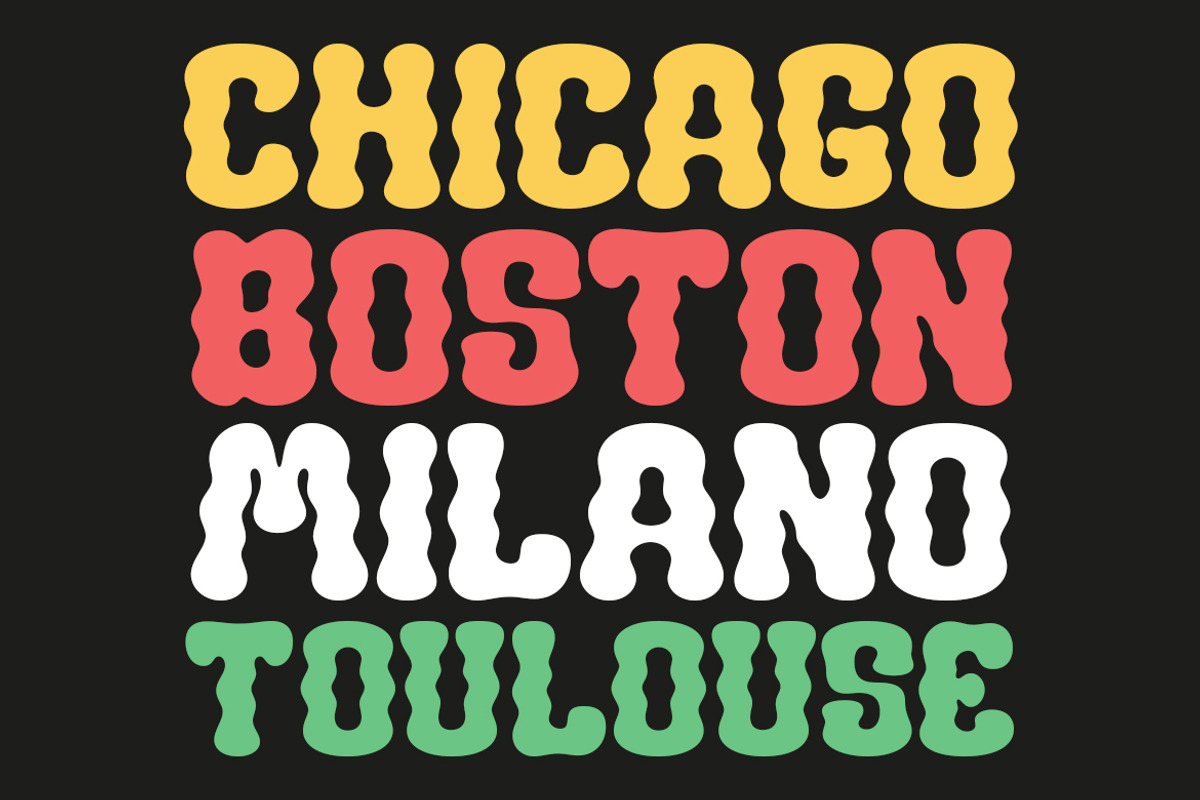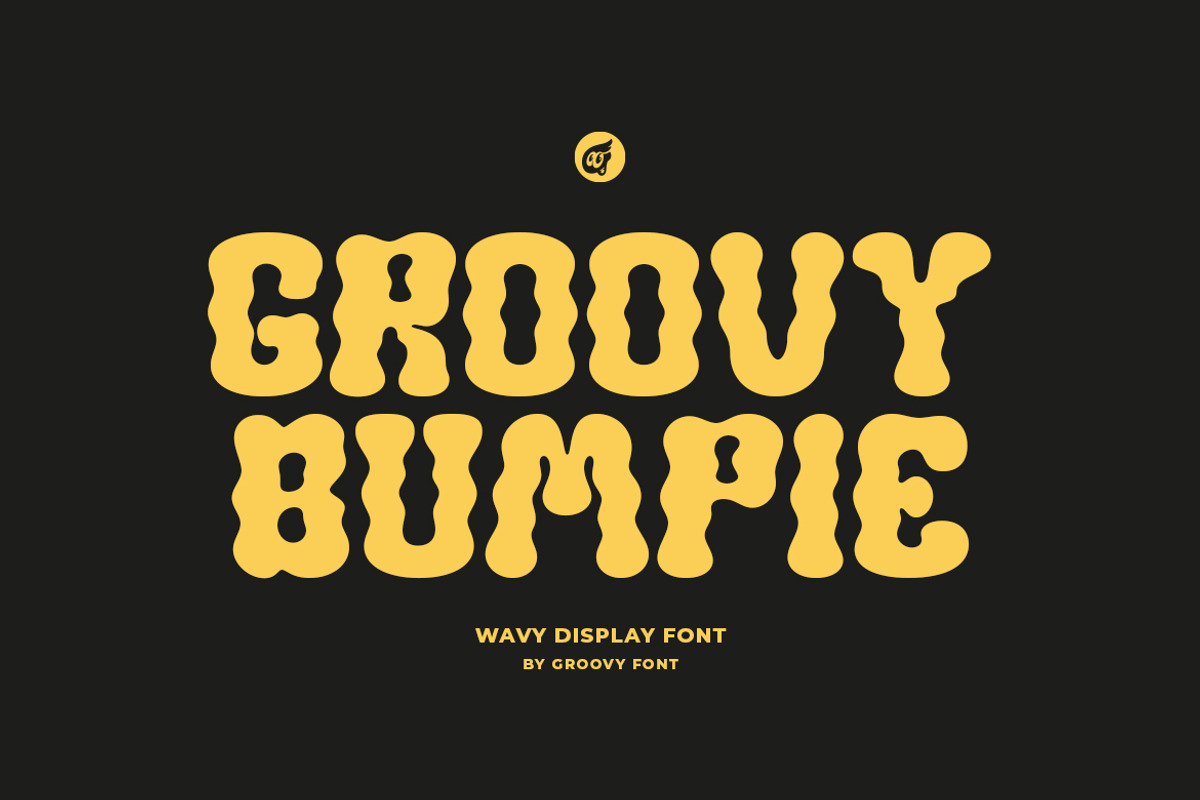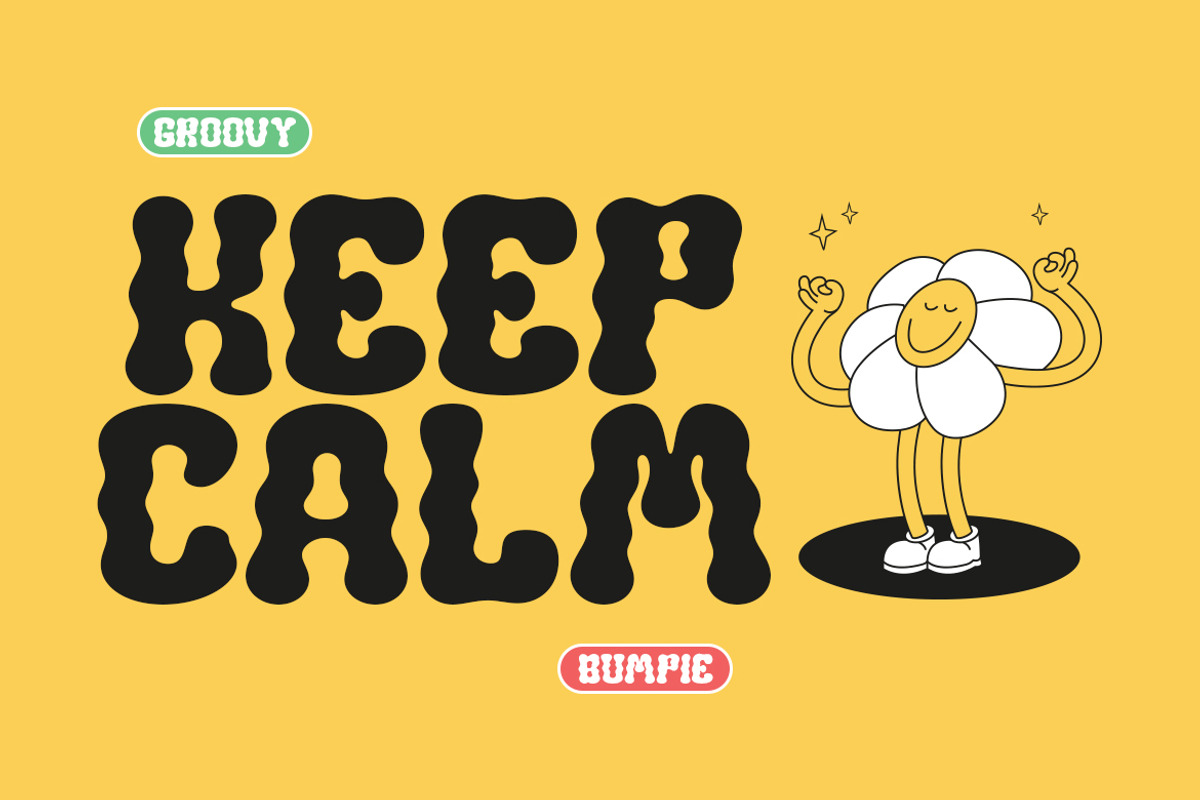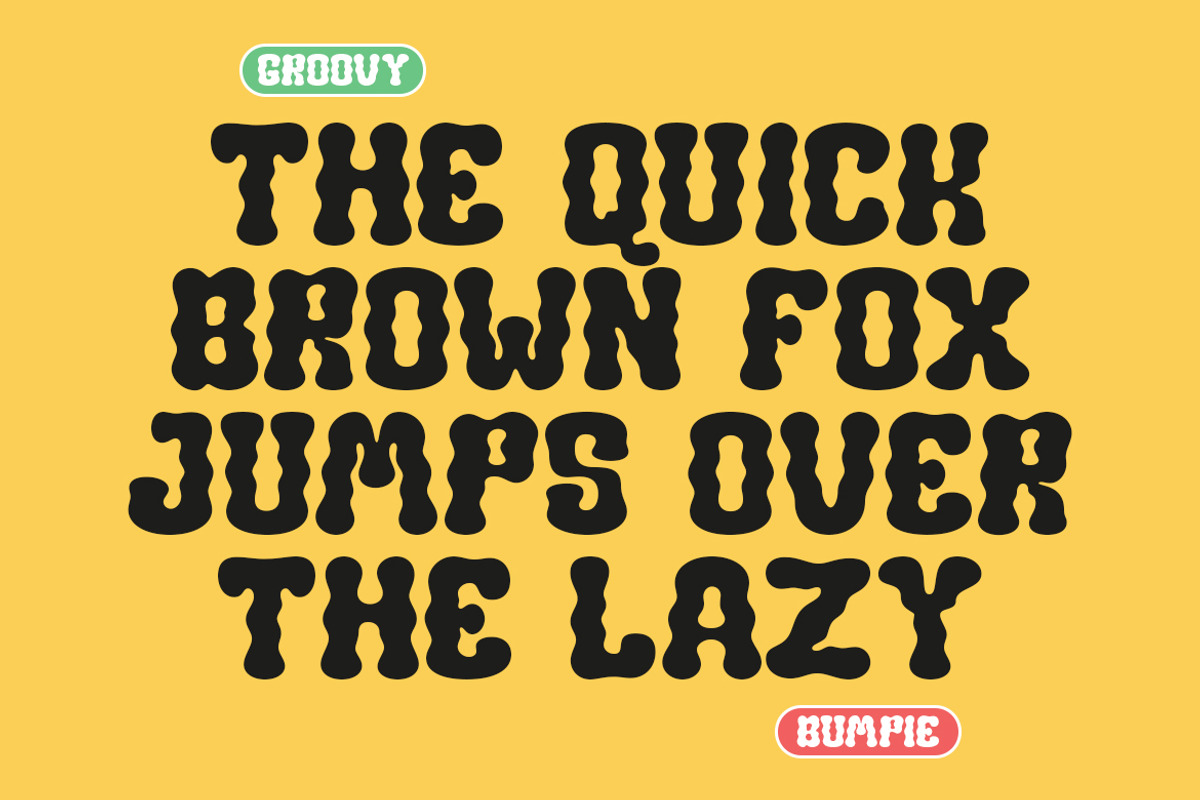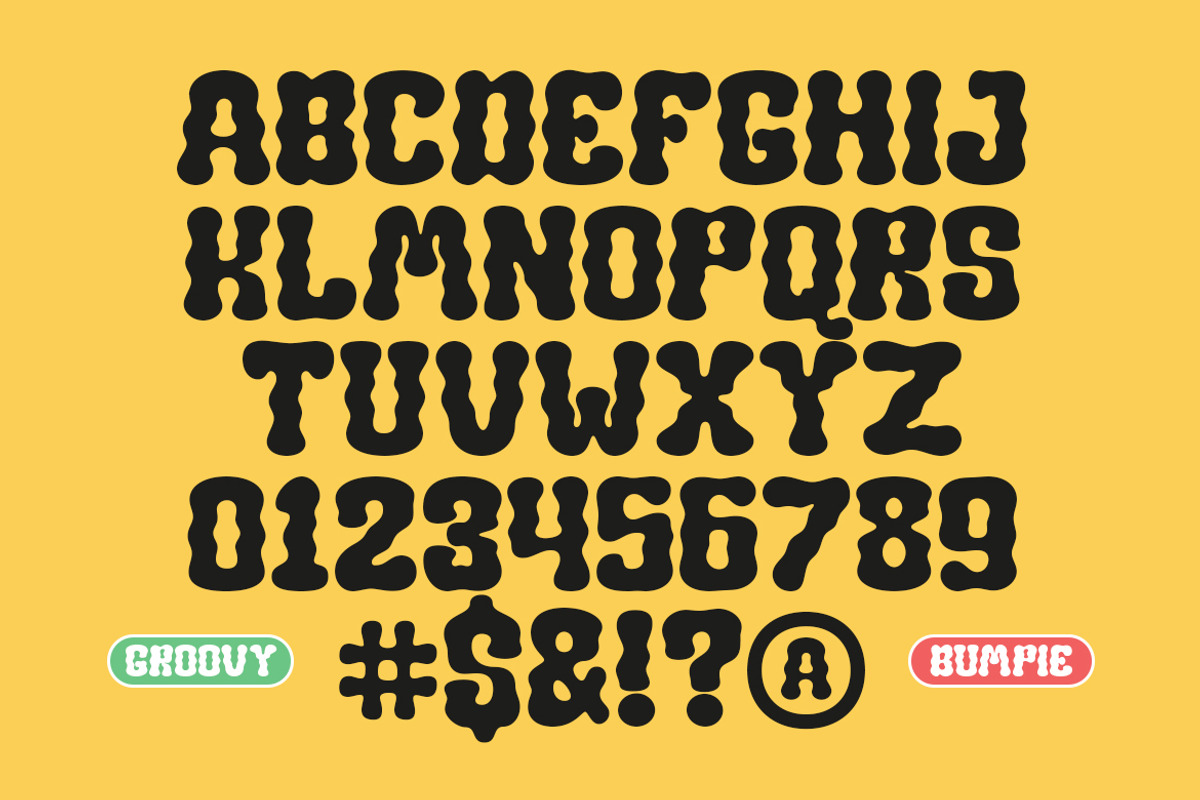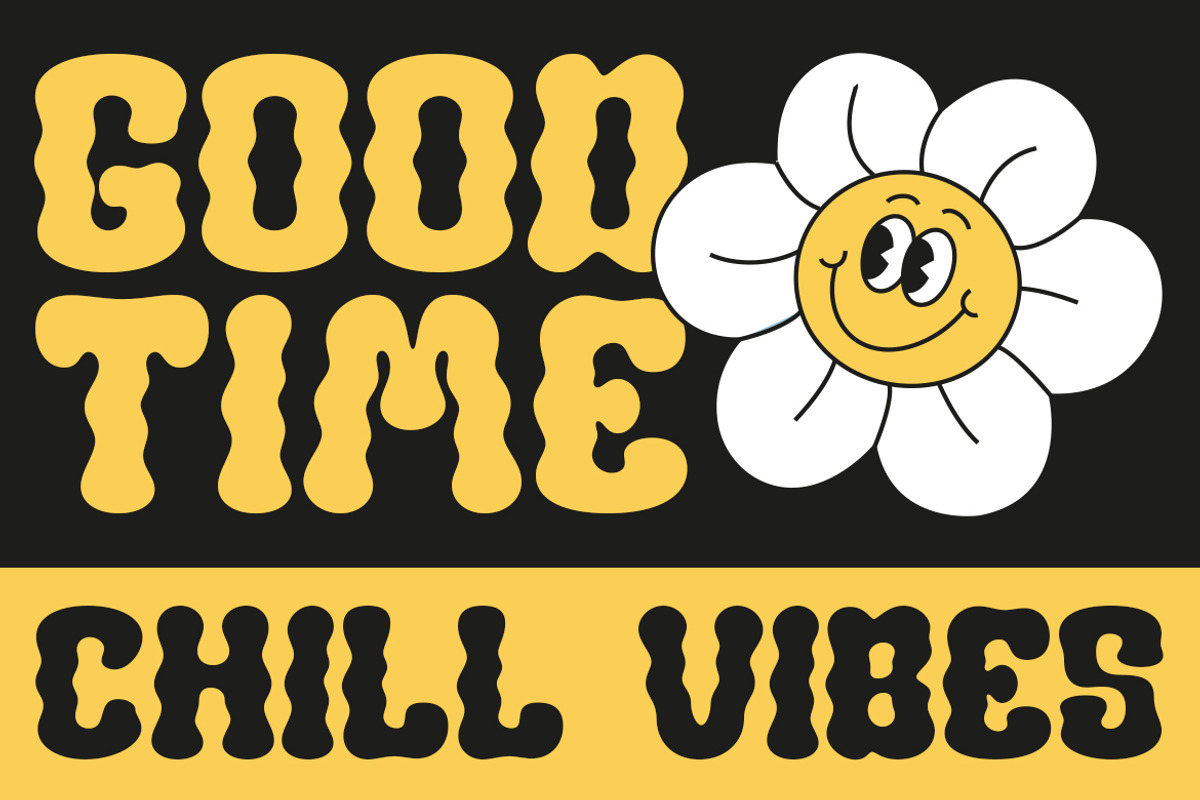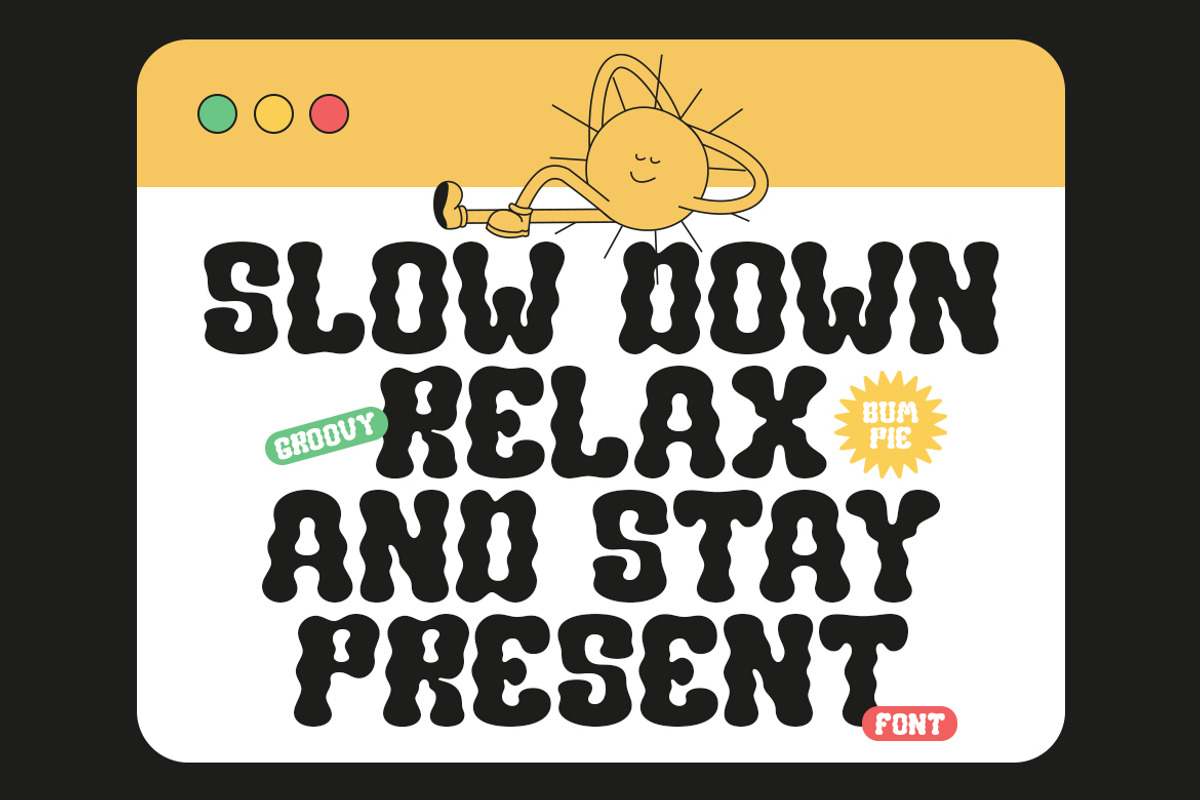
GF Bumpie - Wavy Display Font
Groovy Bumpie is a wavy display font that mimics the undulating motion of waves.
The fluidity and curves of this font evoke a sense of movement and rhythm, making it an ideal choice for projects that seek to convey a dynamic, energetic, or organic aesthetic.
The playful and lively design of Groovy Bumpie adds a distinct and captivating character to any text, creating a visually engaging impact.